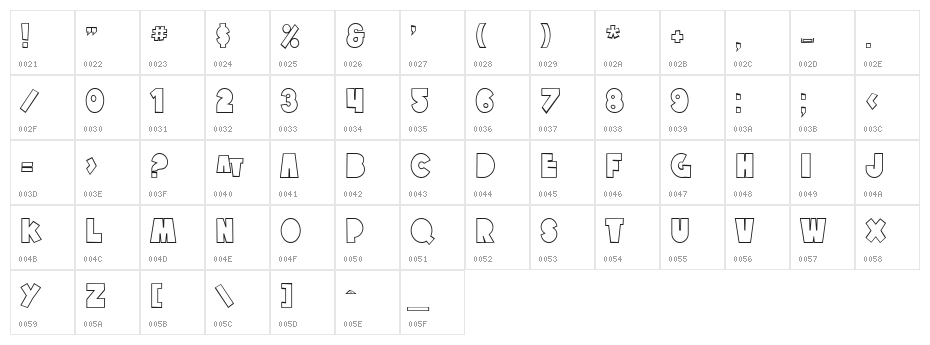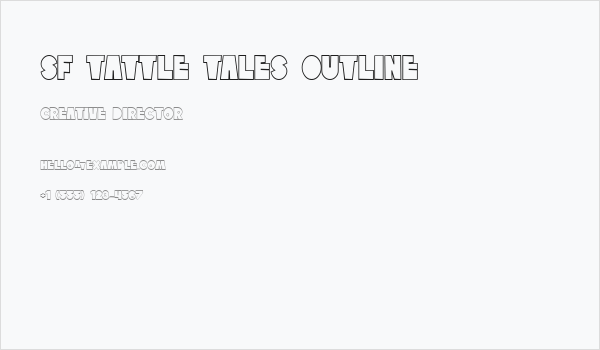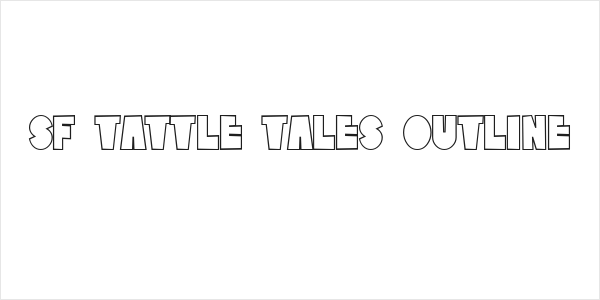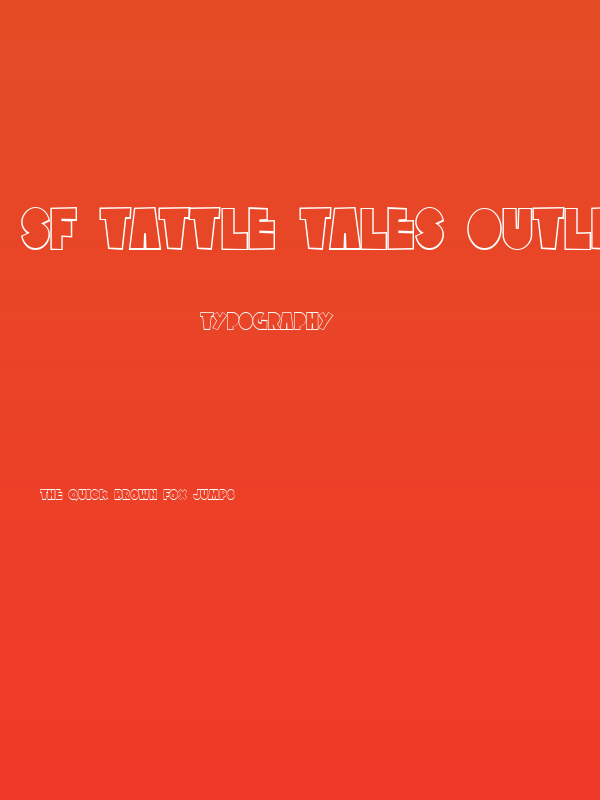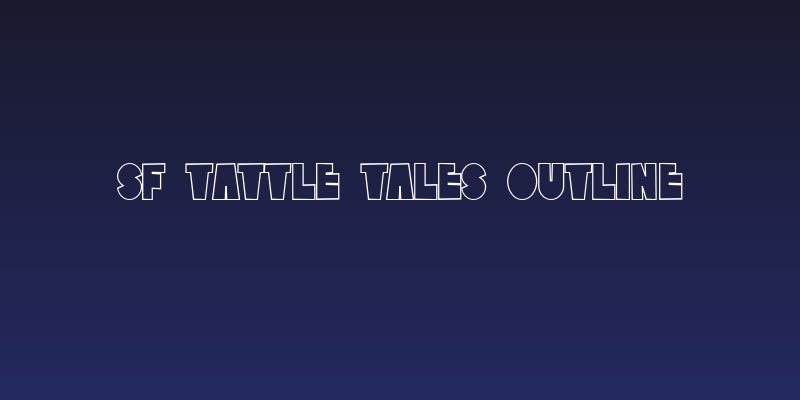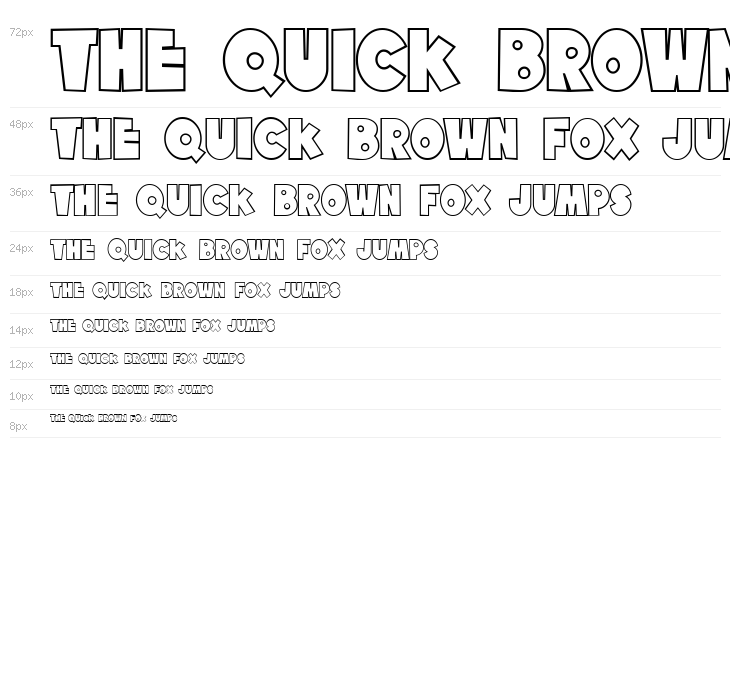
SF Tattle Tales Outline Font
This font features a bold, geometric outline style that is both playful and striking. Each character is crafted with thick, uniform lines that create a hollow effect, making it ideal for designs that require a strong visual impact. The uppercase and lowercase letters maintain a consistent width, contributing to a cohesive appearance. The numerals and special characters are designed with the same bold outline, ensuring uniformity across all elements. This font's unique style is perfect for projects that aim to capture attention and convey a sense of fun and creativity.
Proposed ProjectsIdeal for posters, headlines, logos, and any design that requires a bold statement.